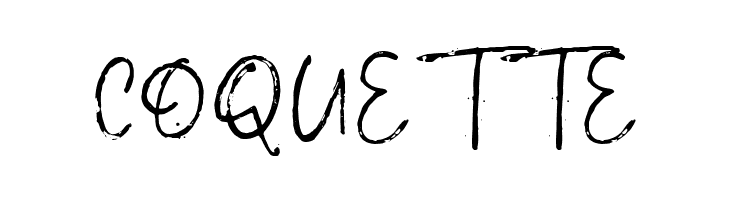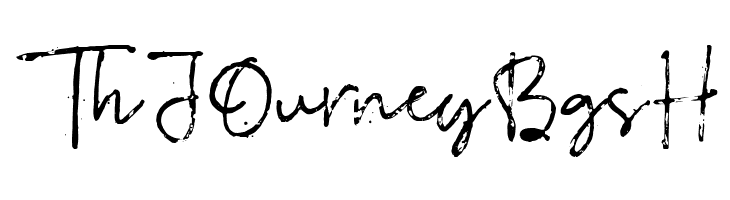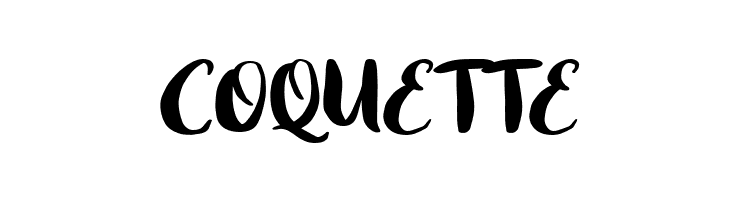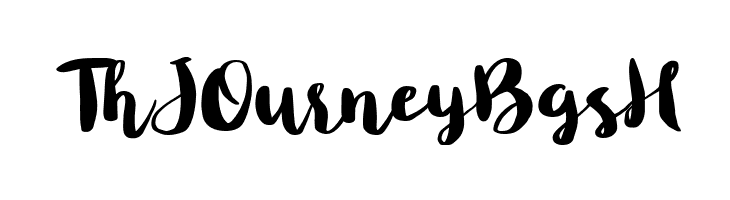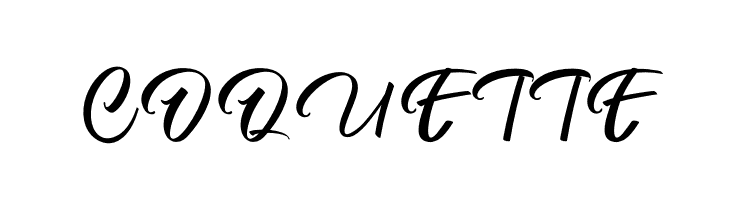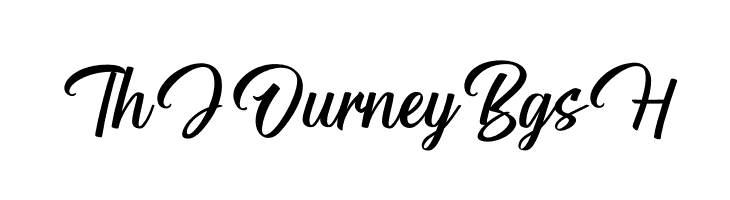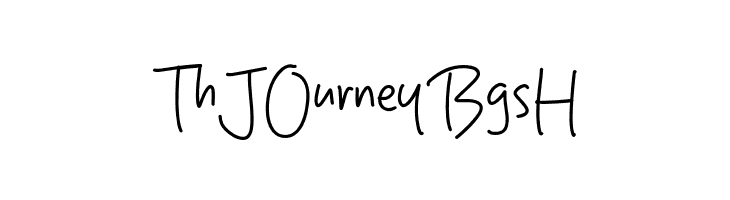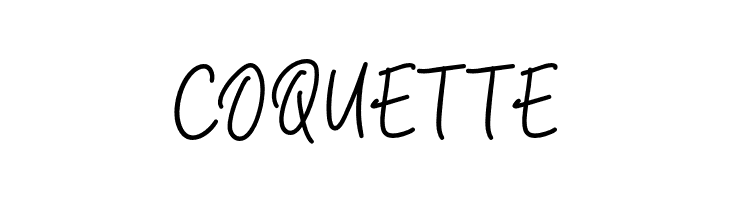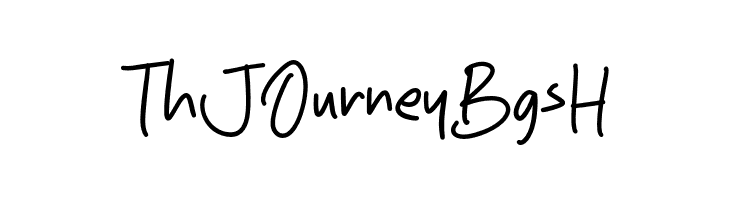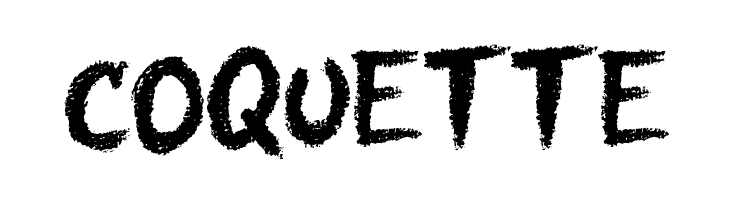
• Blestive Script PERSONAL USE Regular
A fluid and elegant script font with smooth, flowing strokes.
• Blind Signature
A bold, hand-drawn font with textured, expressive strokes.
• Blink Script
A casual, handwritten font with a playful and dynamic style.
• Bllody Rainan
A bold, expressive brush-style font with a hand-painted look.
• BllodyRainan
A bold, brush-style font with dynamic, hand-painted strokes.
• Block Script
A casual, handwritten font with a friendly and approachable style.
• Blombanc Script Personal Use Regular
A dynamic, brush-style script font with expressive, hand-drawn strokes.
• Bloody Script
A distressed, grungy script font with an energetic, handwritten style.
• Blueberry Script PERSONAL USE
A bold, flowing script font with a modern, playful style.
• Blusty Script Free Regular
A bold, expressive script font with flowing, cursive letterforms and dynamic strokes.